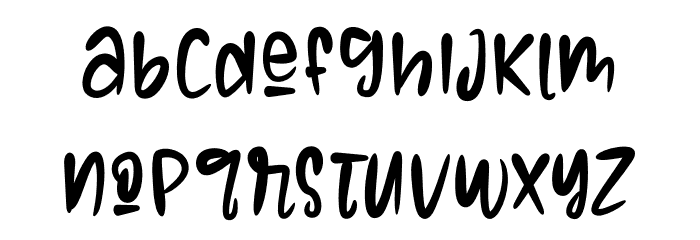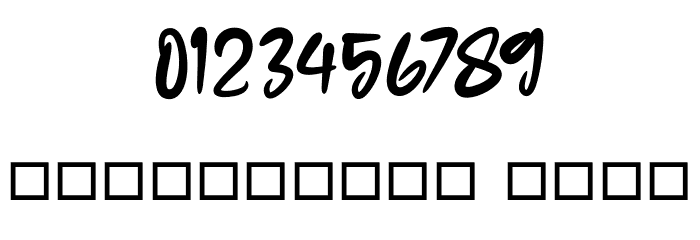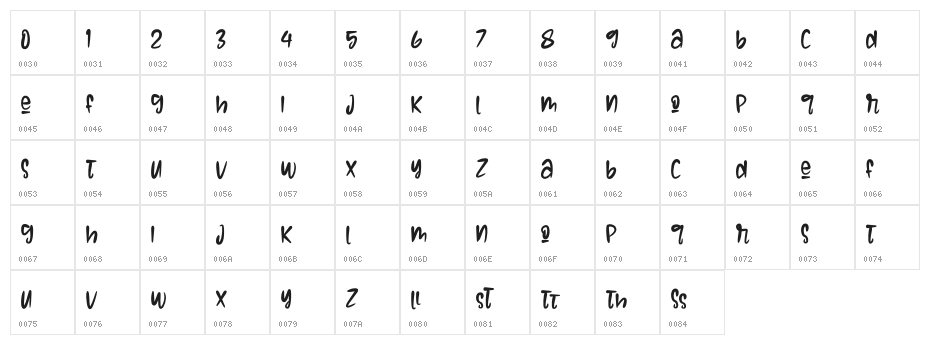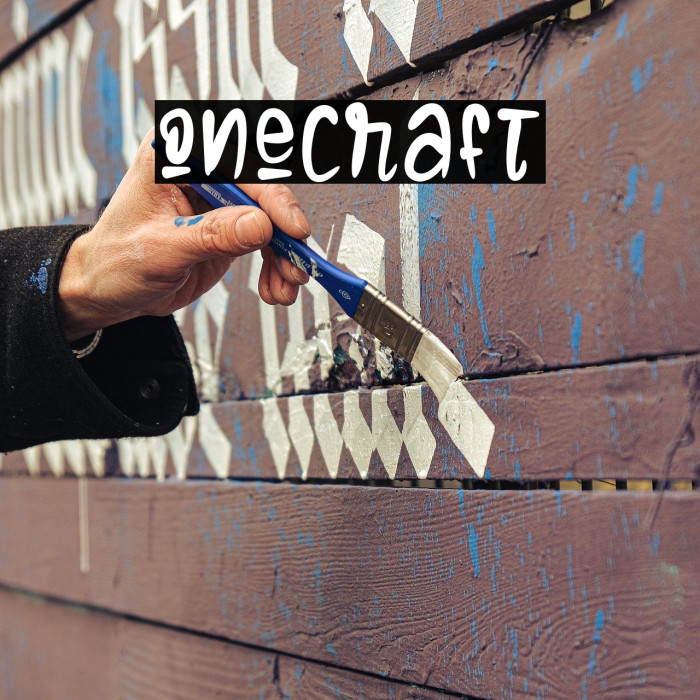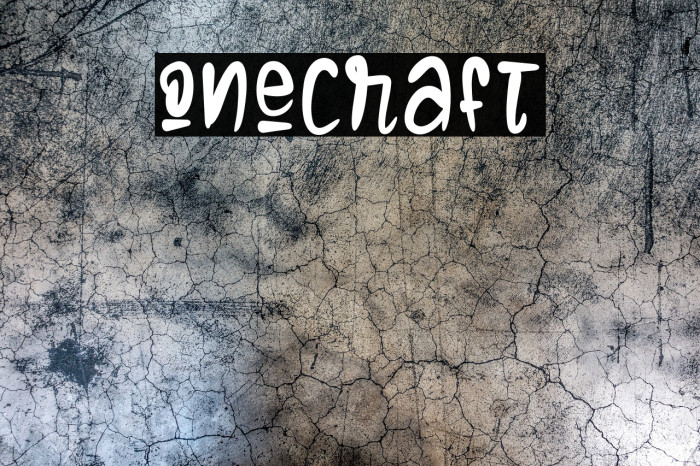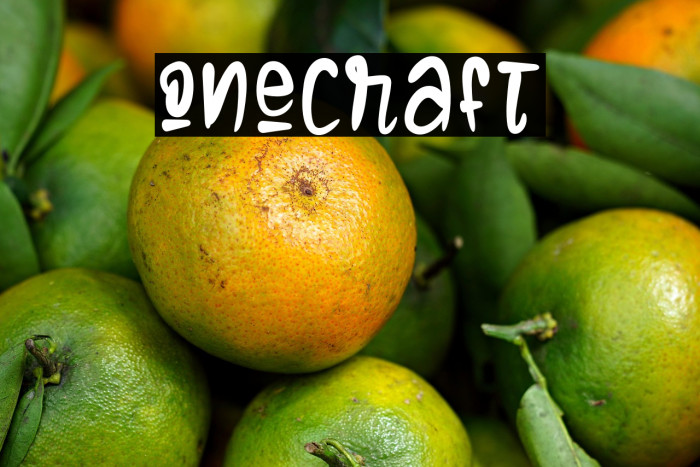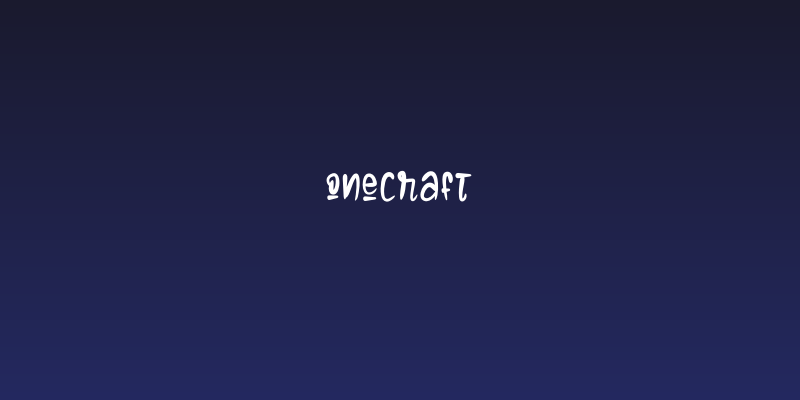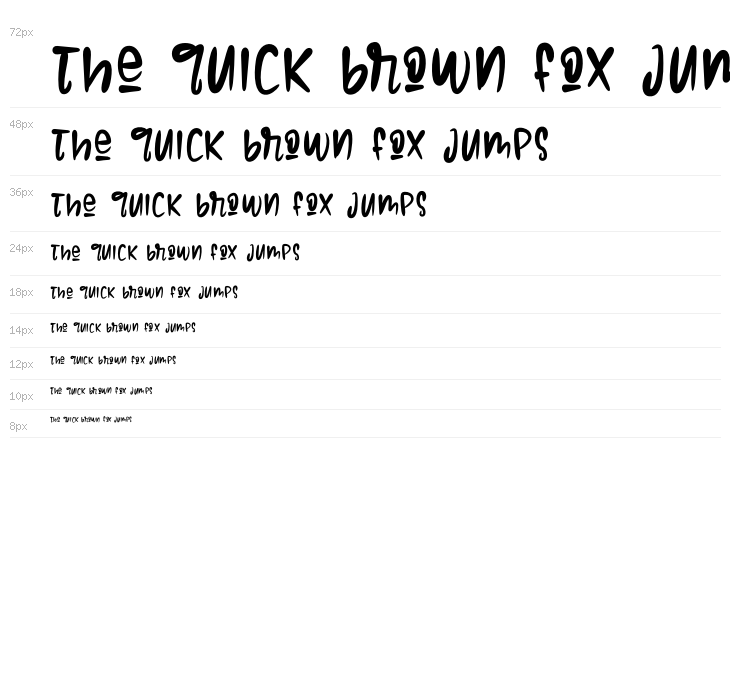
ONECRAFT Font
This font features a playful and energetic script style, characterized by its bold and rounded letterforms. The strokes are smooth and fluid, giving it a handwritten appearance that is both casual and friendly. The uppercase and lowercase letters maintain a consistent style, with a slight slant that adds to its dynamic feel. The numbers follow the same aesthetic, ensuring uniformity across all characters. This font is ideal for projects that require a personal touch, such as invitations, greeting cards, or branding materials that aim to convey warmth and approachability.
A playful, bold script font with a handwritten, friendly style.
- Proposed Projects: Ideal for invitations, greeting cards, playful branding, and personal projects.
- Category: Script
- Overall Style: Playful, Casual
- Use Case: Headlines, Logos, Invitations